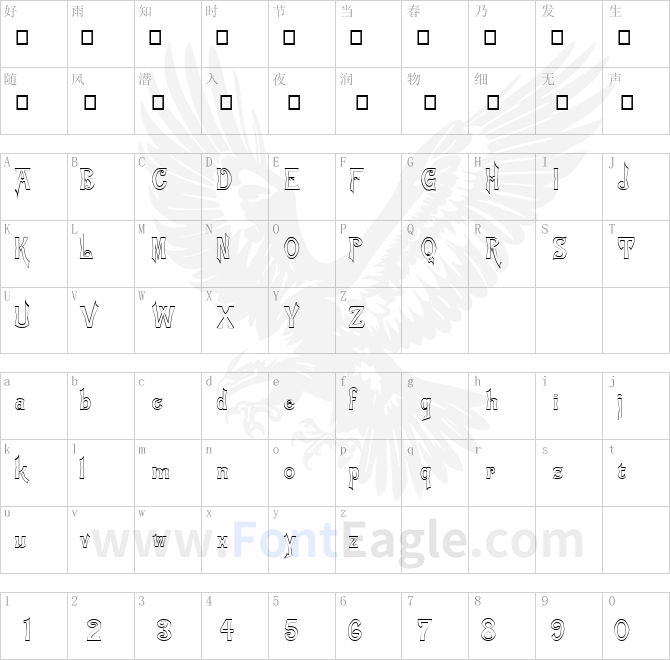
- Font name:FZ JAZZY 21 HOLLOW
FZ-JAZZY-21-HOLLOW is a great font, widely used in graphic design, single-page menu design, poster design and other fields, and is deeply loved by designers.FZ-JAZZY-21-HOLLOW download.